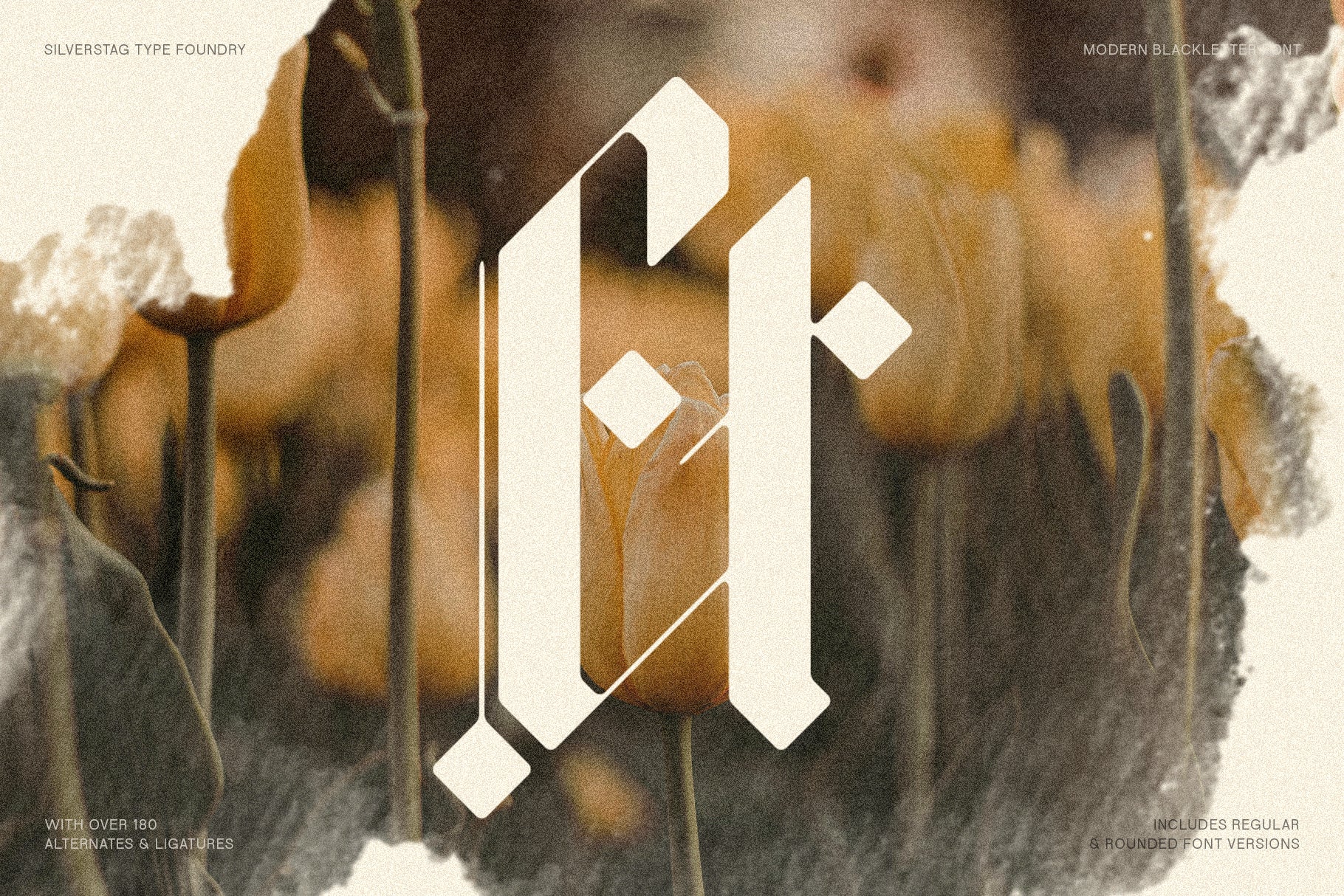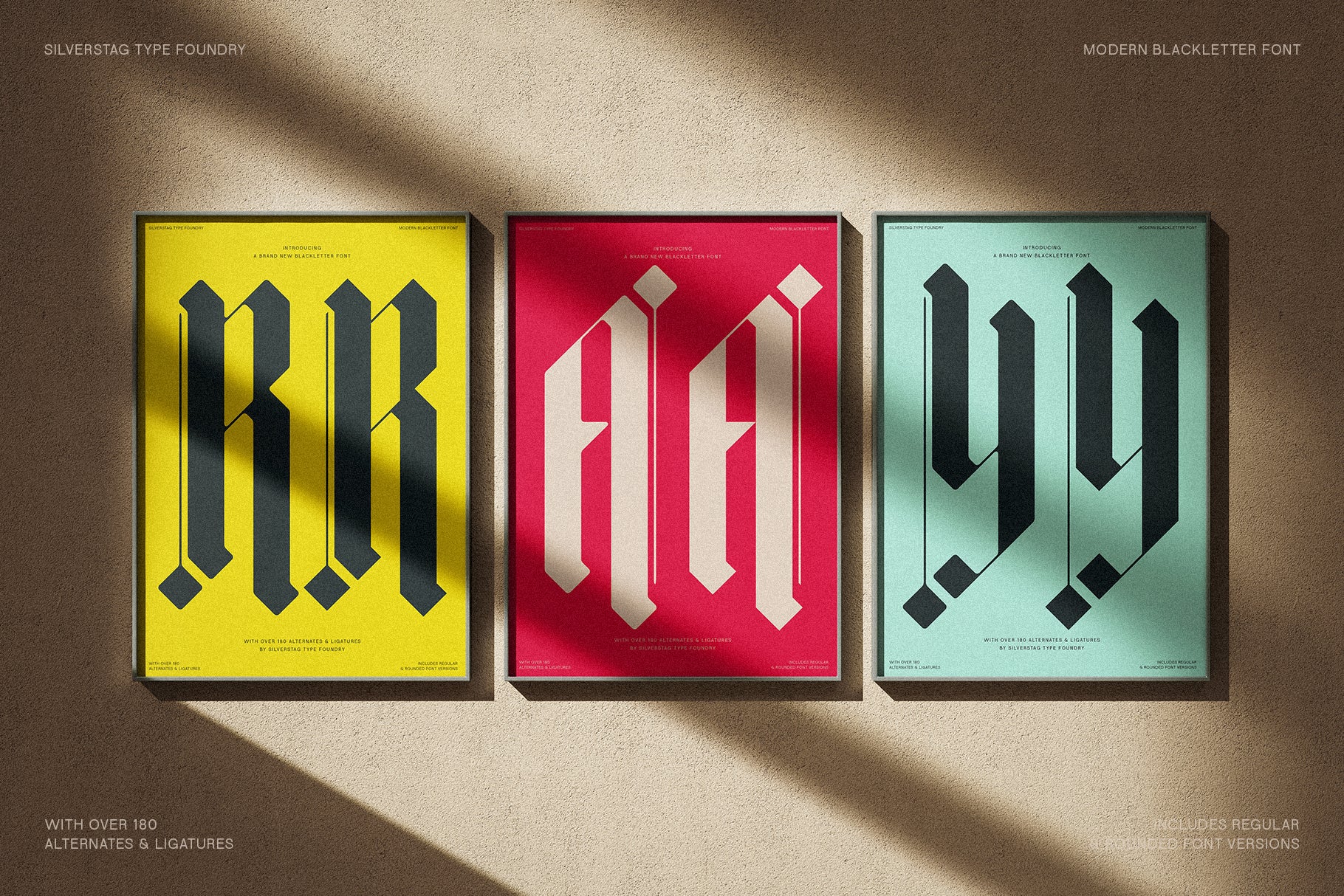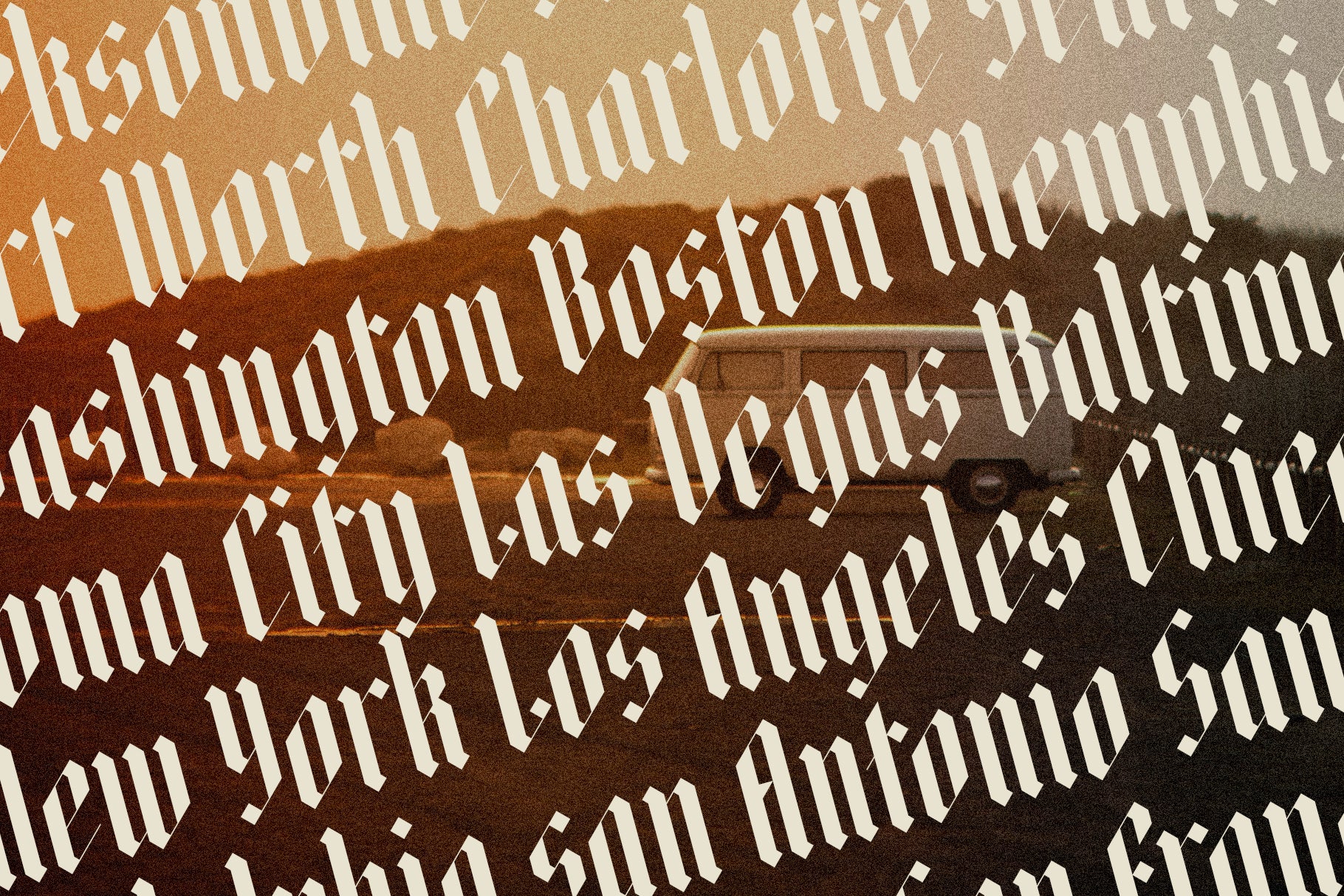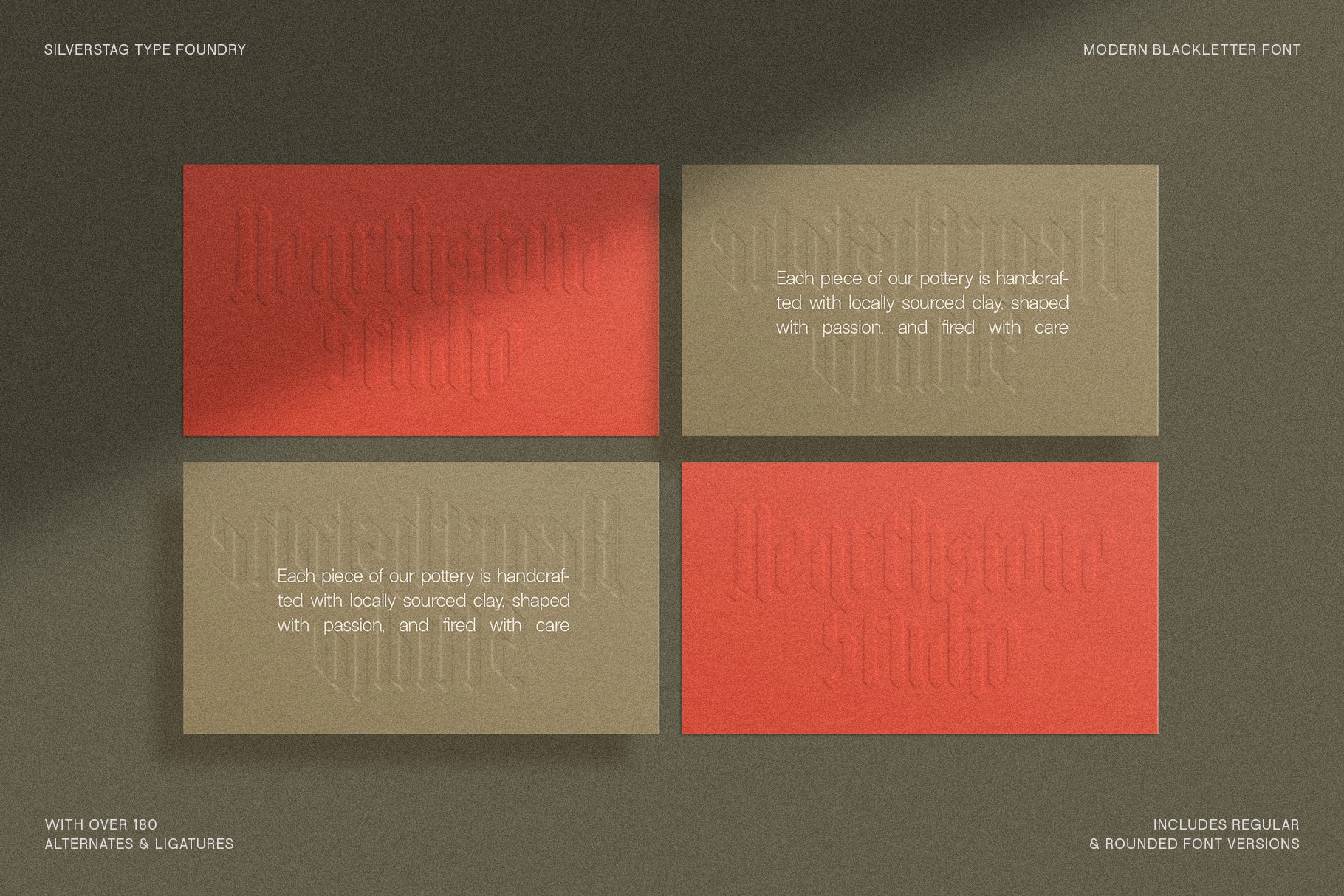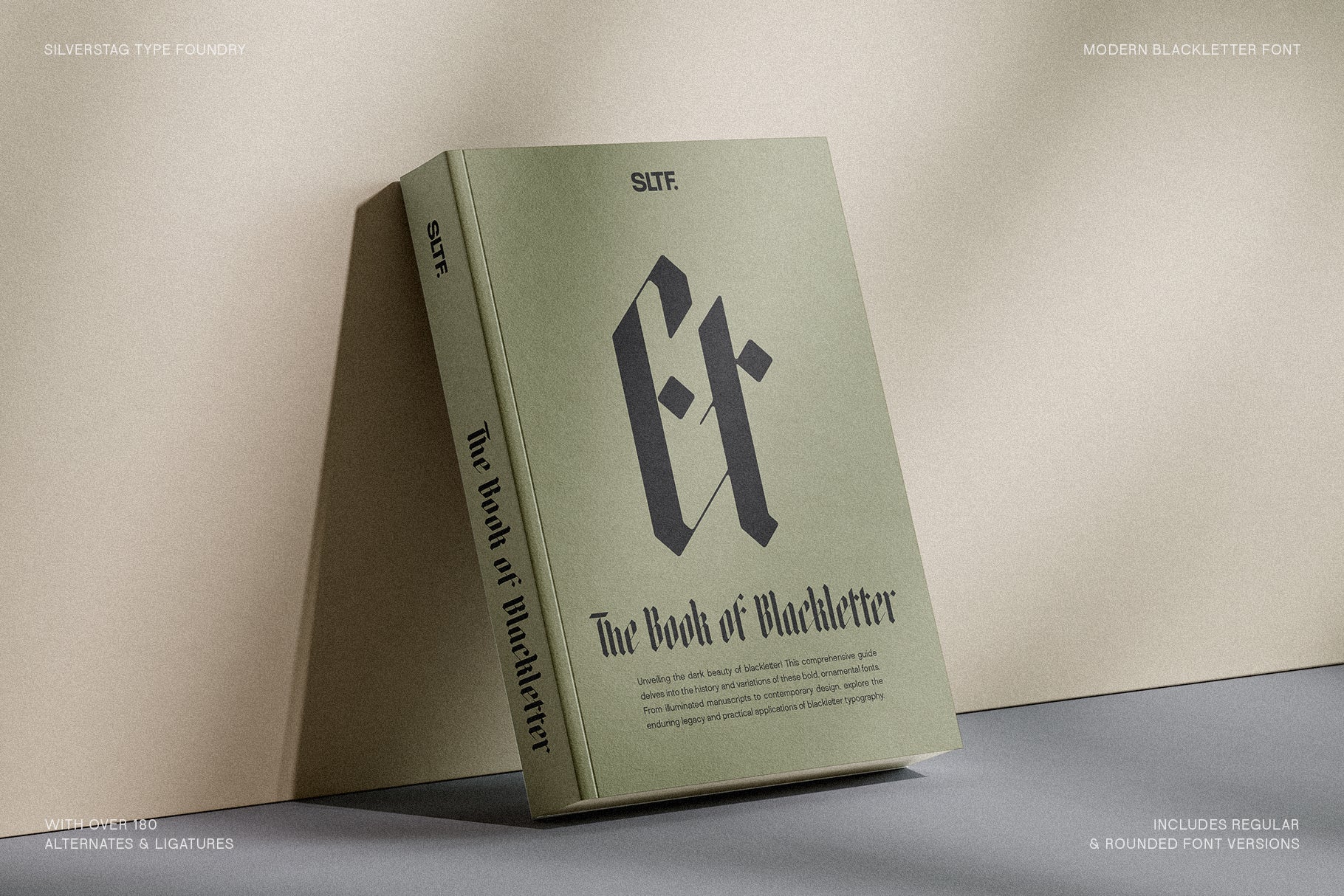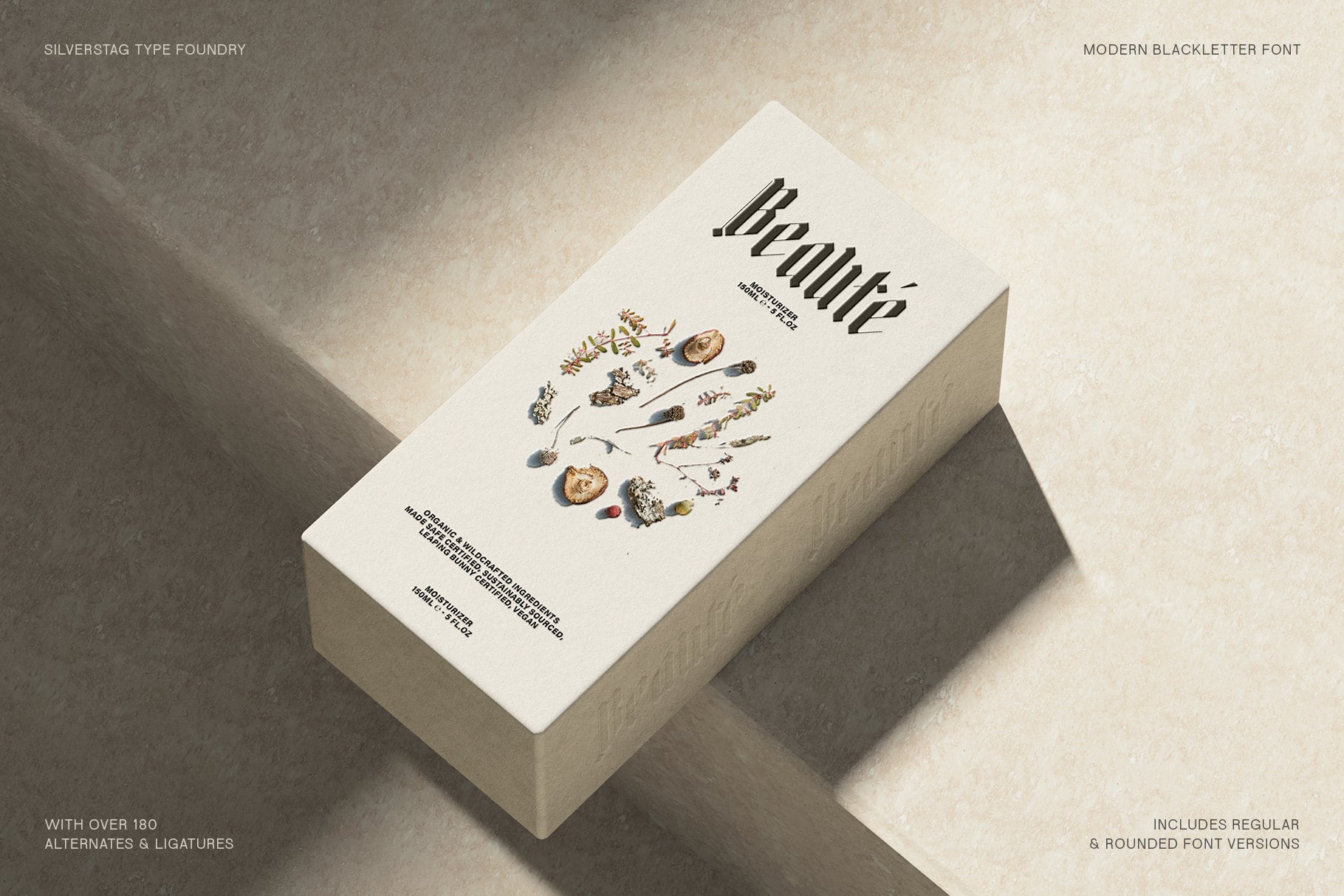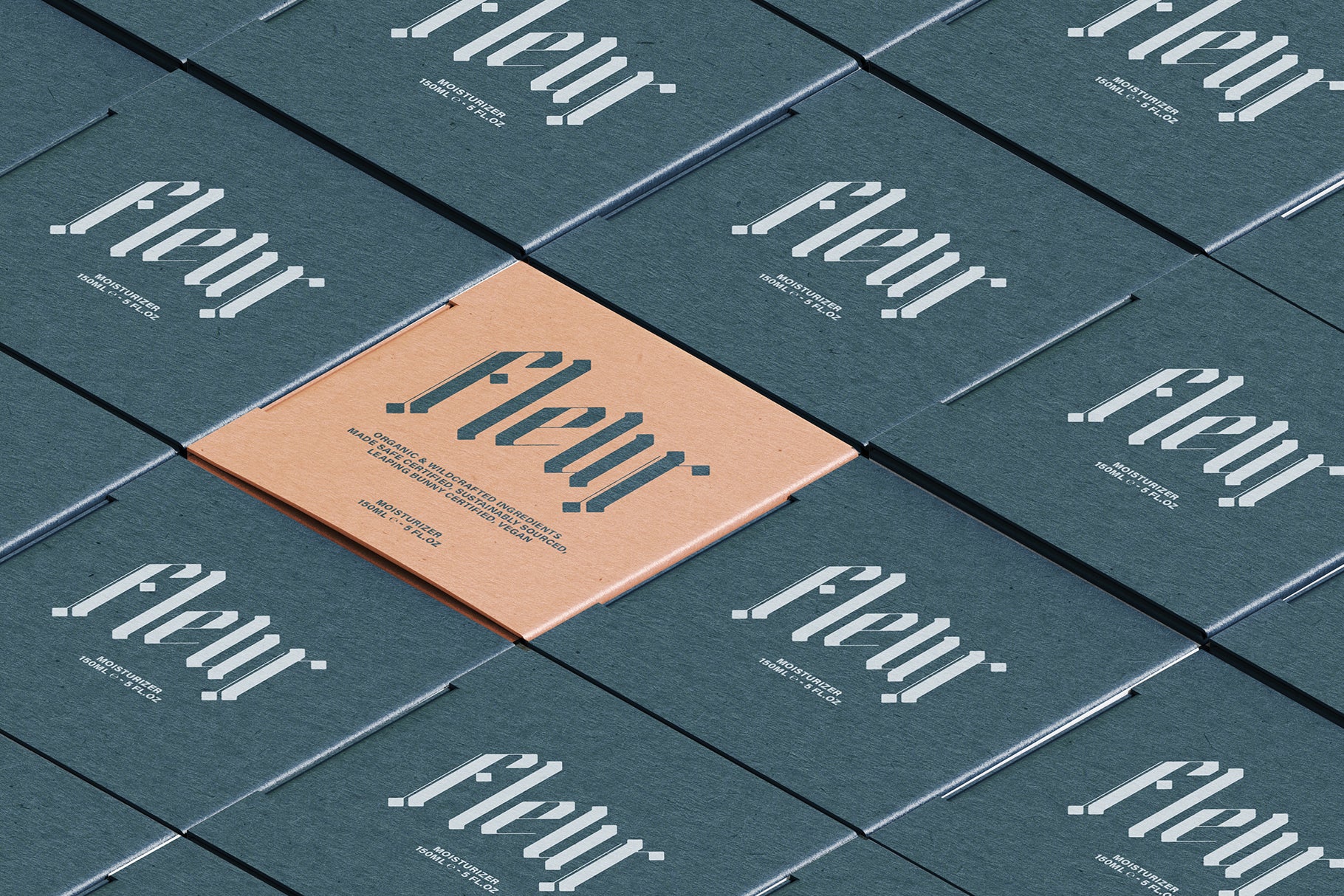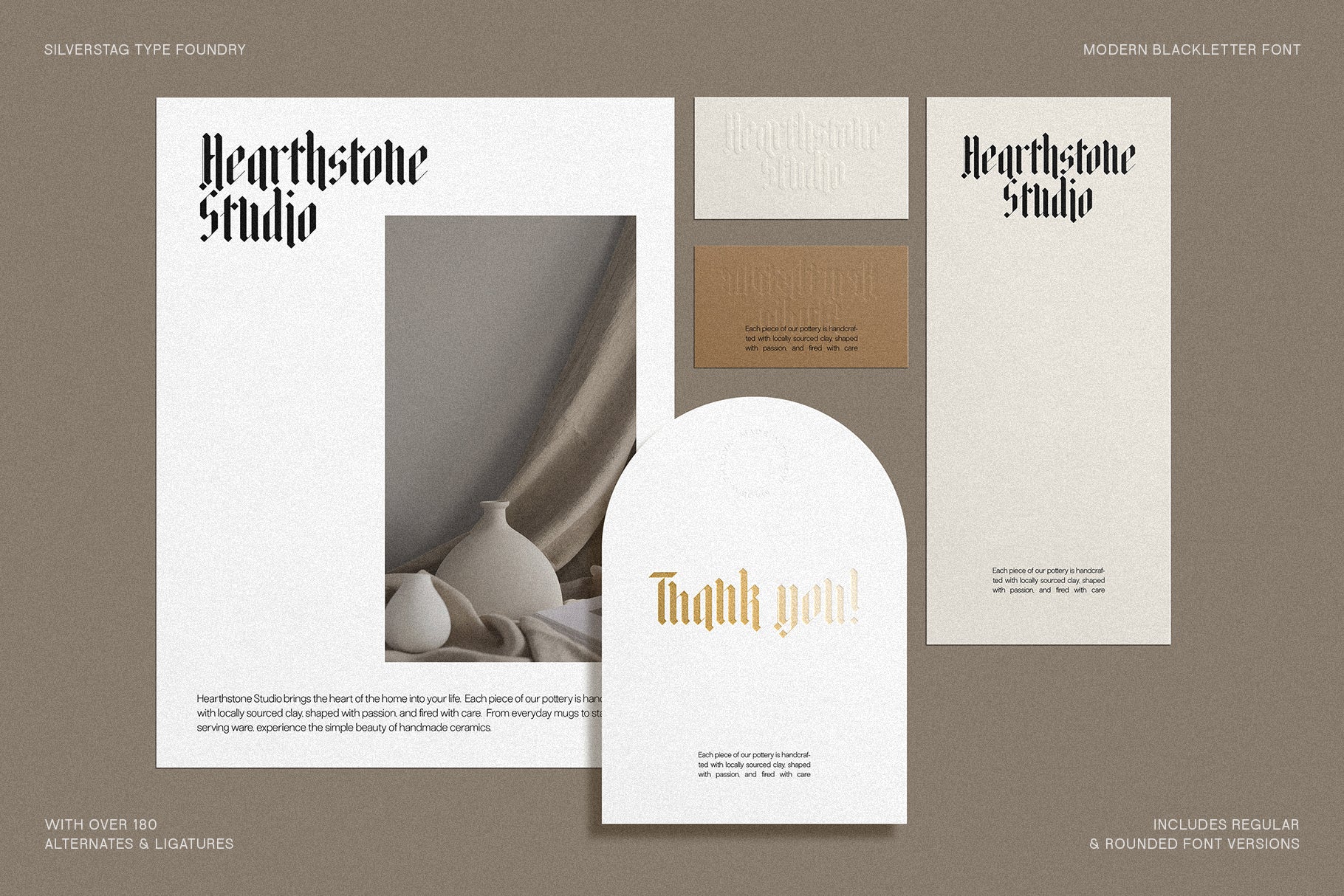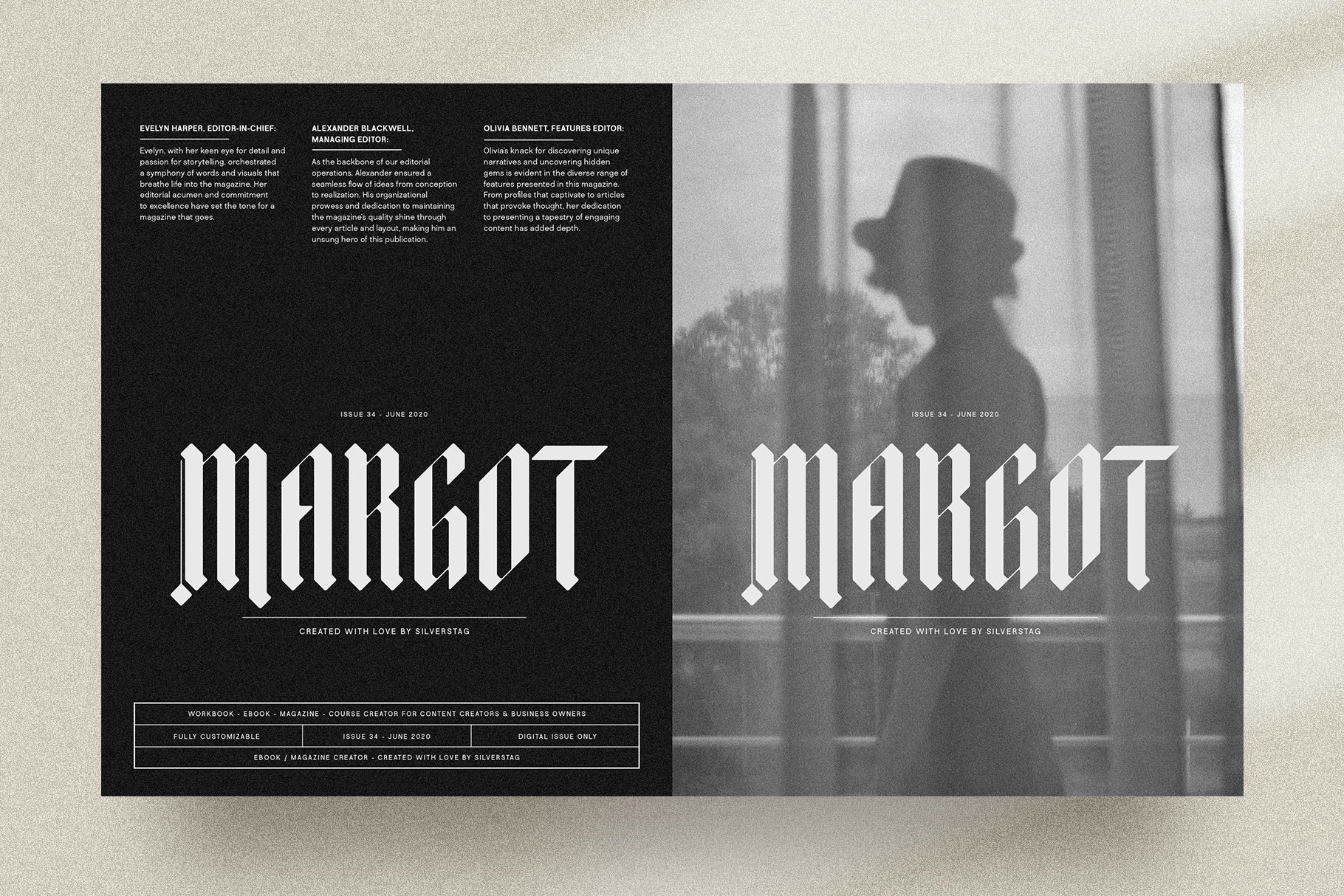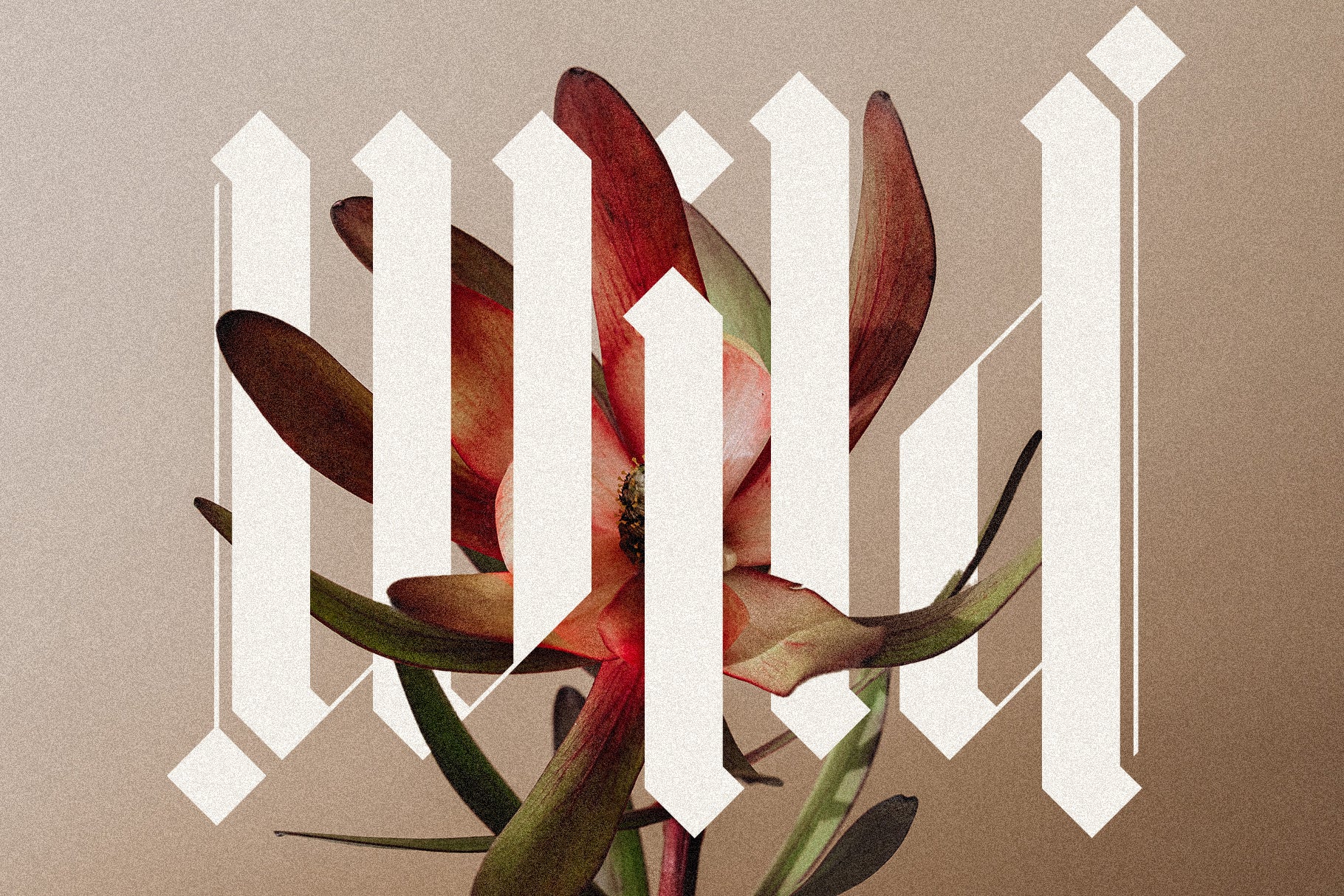
Rymaki is a contemporary take on classic blackletter typography, reimagined with clean lines, bold contrast, and rich stylistic detail. Designed for designers who want to fuse historical character with modern attitude, Rymaki brings powerful personality to logos, headlines, branding, packaging, posters, and more.
This expressive blackletter typeface includes over 560 glyphs, featuring 180+ stylistic alternates and ligatures for endless variation. Its striking letterforms maintain gothic roots while embracing clean, modern geometry—making it both edgy and accessible.
Rymaki comes in two versions: a traditional style for bold impact, and a rounded variant for a softer, more contemporary feel. It pairs beautifully with minimalist sans serifs for contrast-driven design that commands attention.
Supporting 90+ languages, Rymaki is a global-ready blackletter font built to make statements across cultures and mediums.